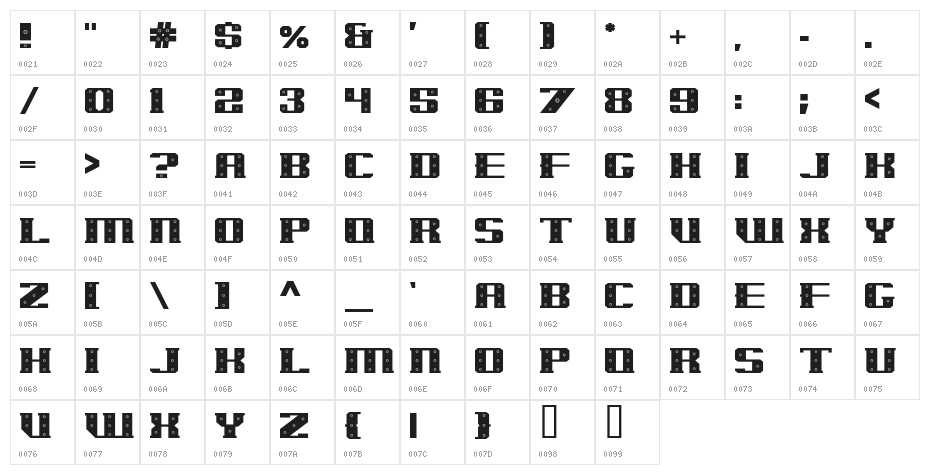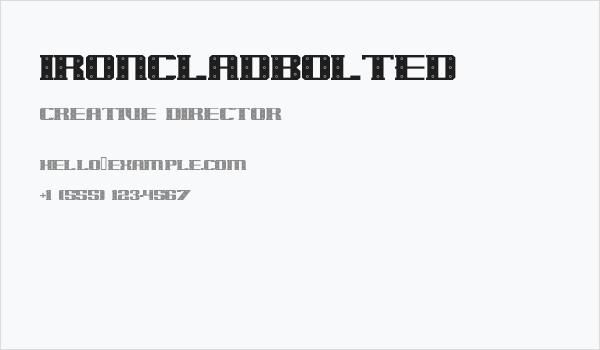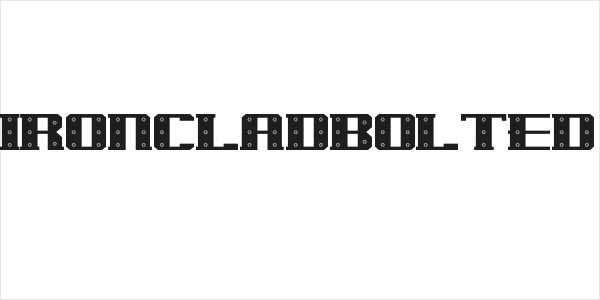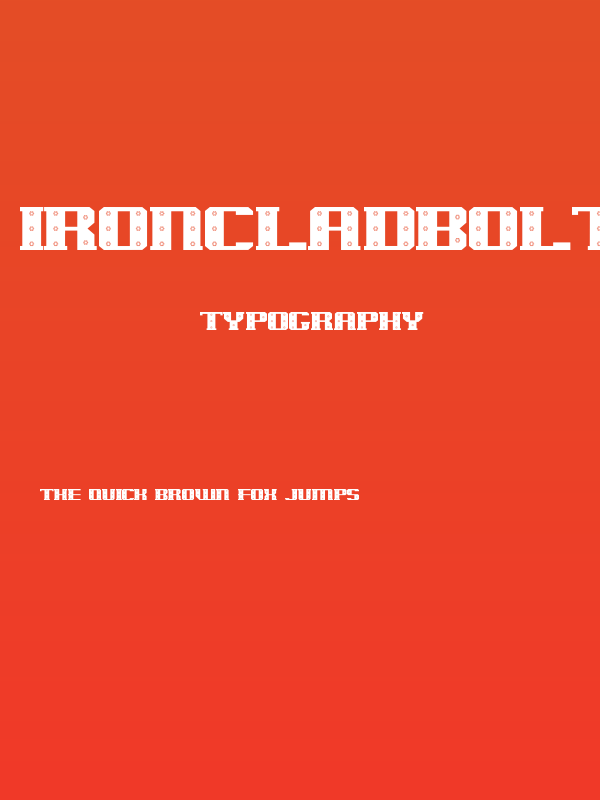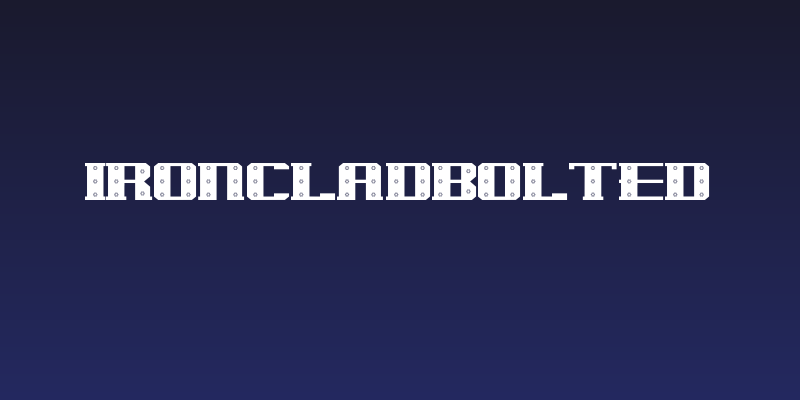
IronCladBolted Font
IronCladBolted Description
This font features a bold, industrial design with a distinctive bolted appearance, reminiscent of metal plates joined together. Each character is constructed with a strong, geometric form, incorporating circular bolt details that add a rugged, mechanical aesthetic. The uppercase and lowercase letters maintain a consistent style, emphasizing a robust and sturdy look. The numerals and special characters follow the same design principles, ensuring uniformity across all glyphs. This font's unique style makes it ideal for projects requiring a strong, industrial theme.
| Overall Style | Industrial, Mechanical, Bold |
| Proposed Projects | Ideal for industrial-themed posters, logos, video game titles, and branding materials that require a strong, mechanical aesthetic. |